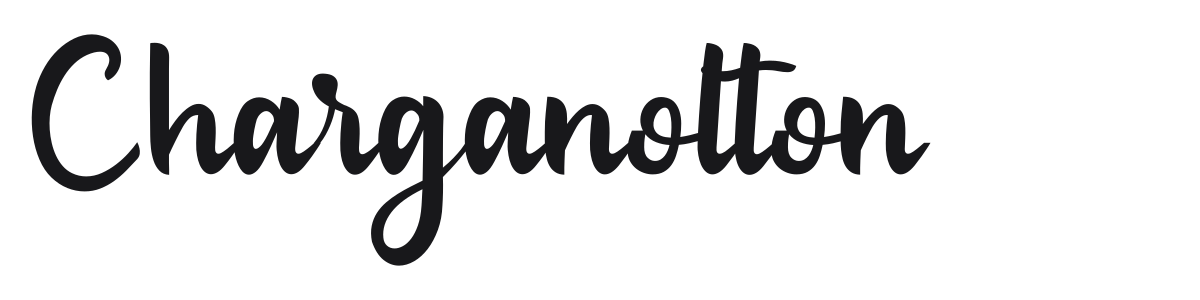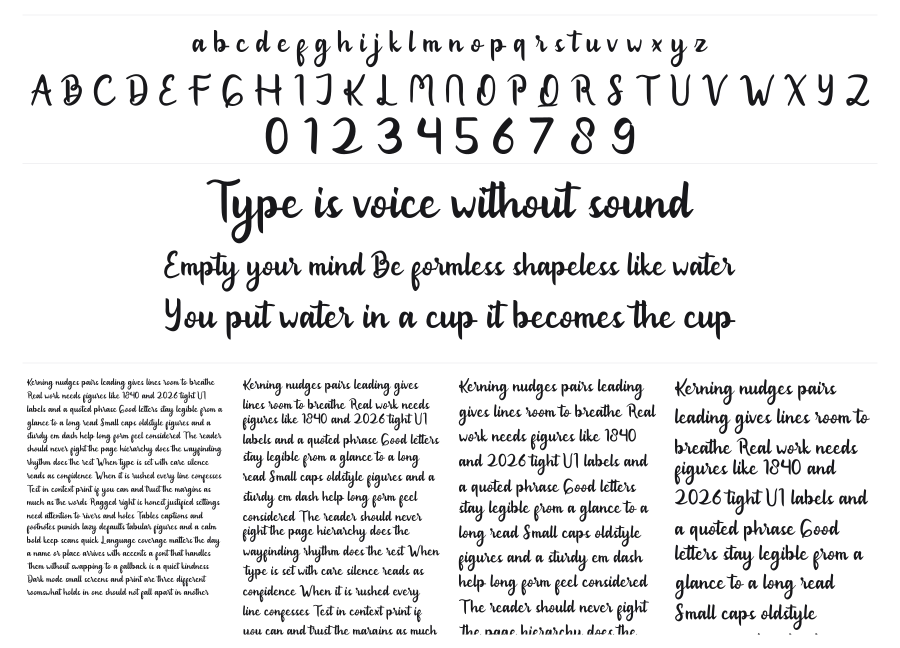
Charganolton
Charganolton is a casual connected script with a warm, handwritten energy and moderate stroke contrast. The letters flow naturally with a slight bounce to the baseline, landing somewhere between polished calligraphy and relaxed everyday writing. It works well on packaging, logos, and any project that needs a friendly, personal touch.